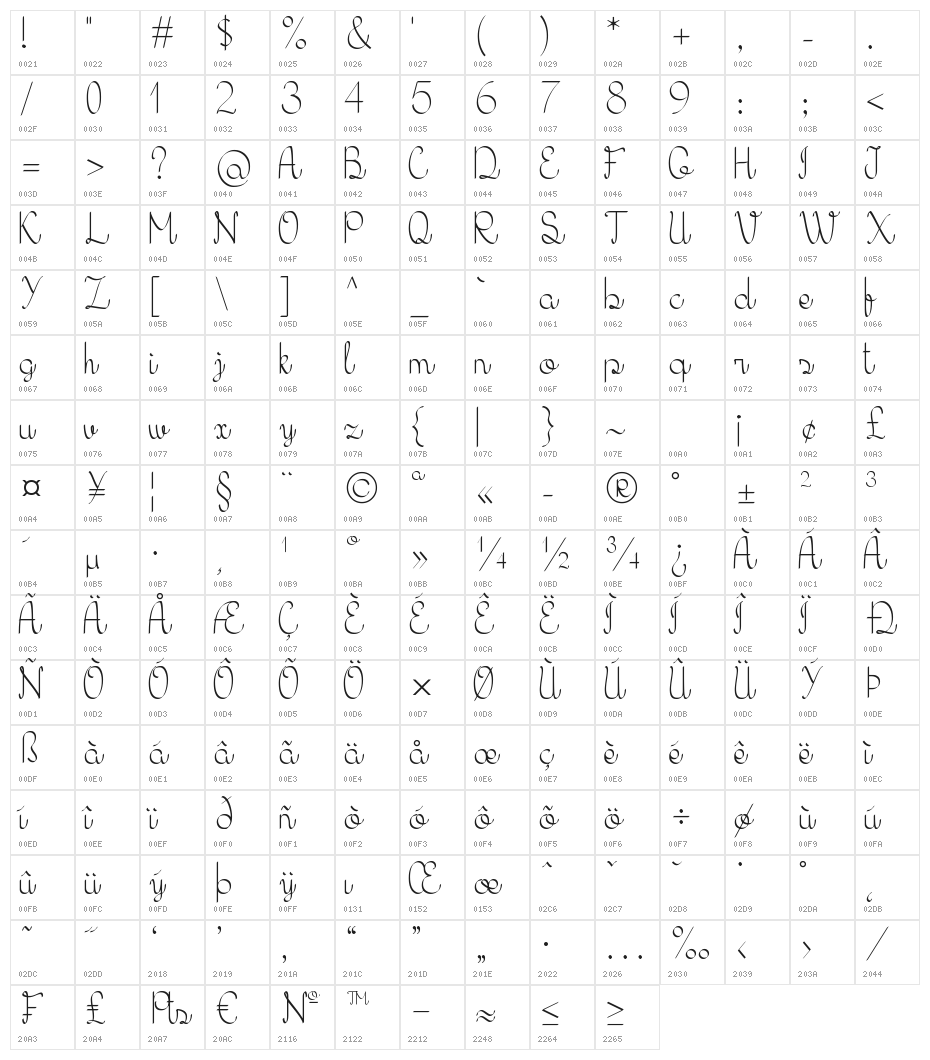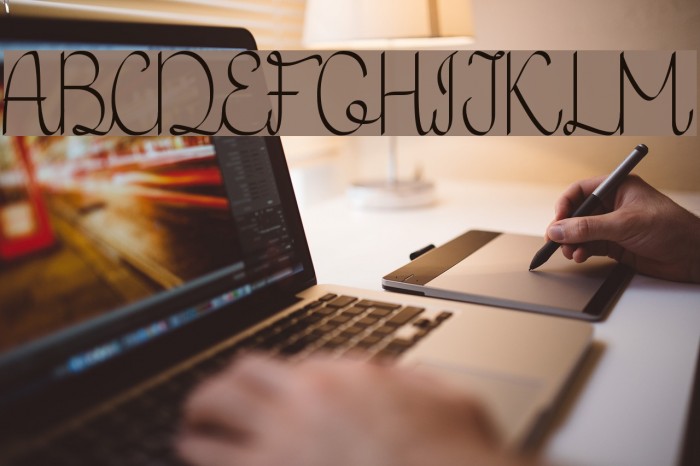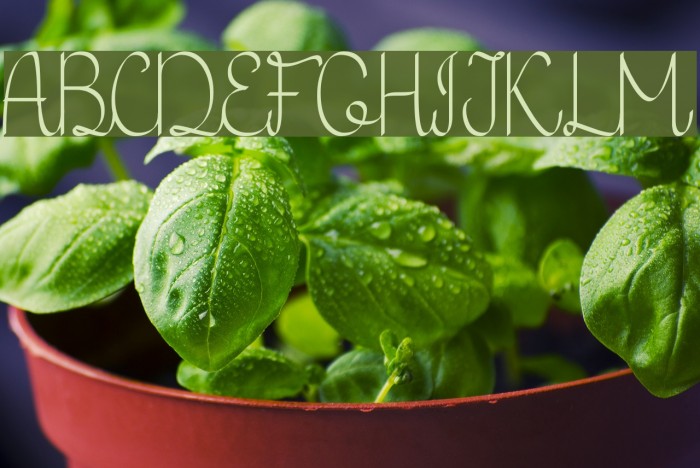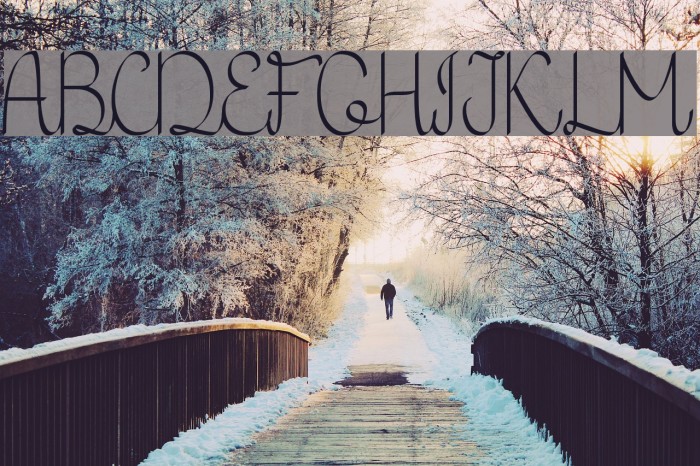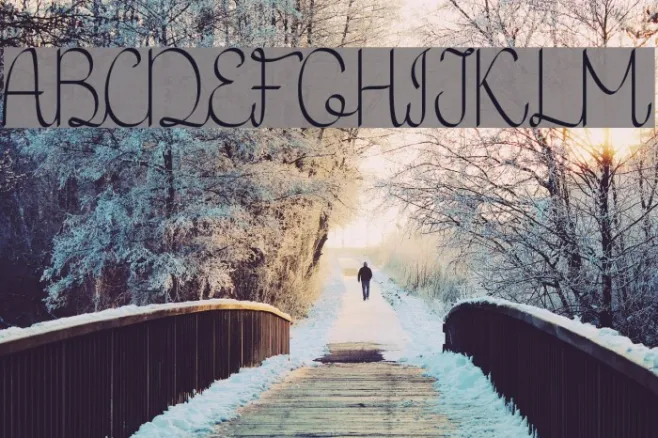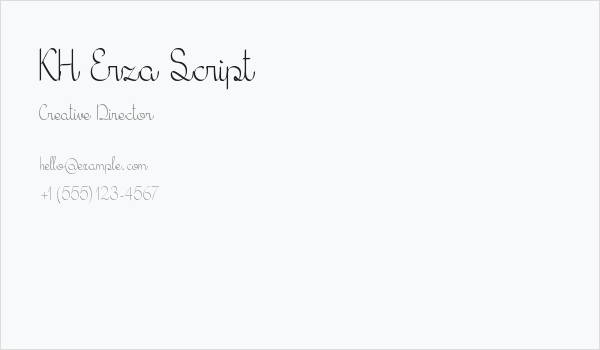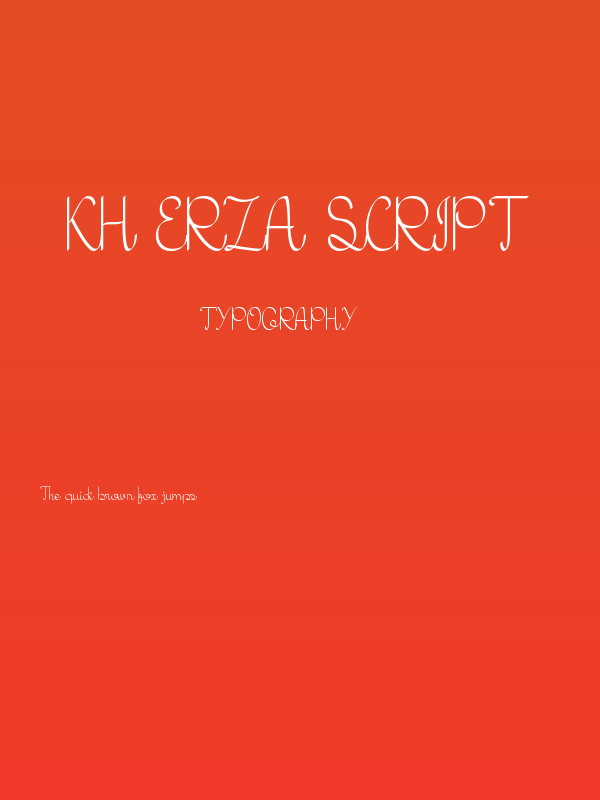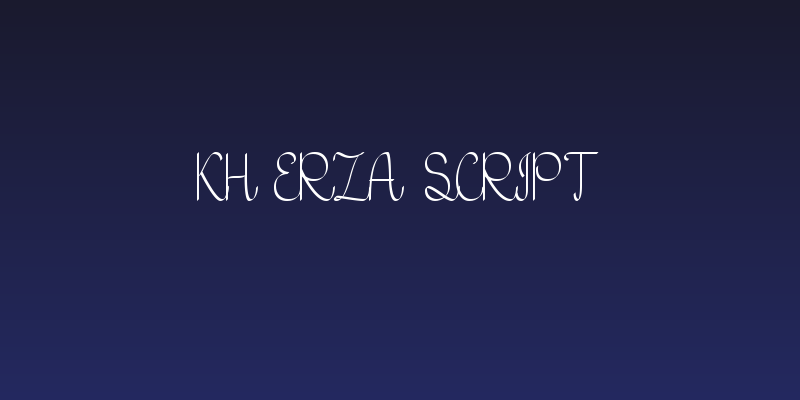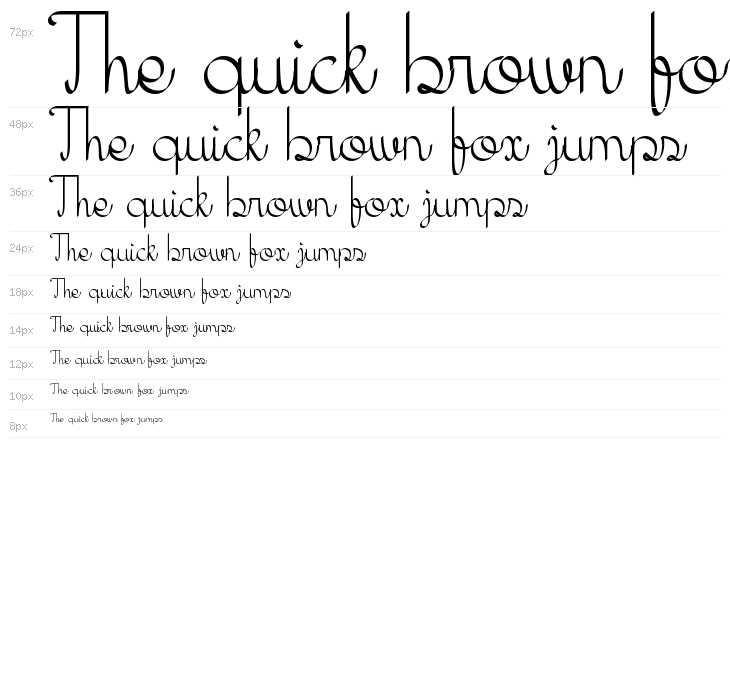
KH Erza Script Font
KH Erza Script Description
This font features a fluid, cursive style with elegant loops and swirls, giving it a sophisticated and artistic appearance. The uppercase letters are tall and slender, with distinctive flourishes that add a touch of flair. The lowercase letters maintain a consistent flow, enhancing readability while retaining a decorative charm. Numbers and special characters are designed to match the overall aesthetic, ensuring a cohesive look across all text. The font's thin strokes and graceful curves make it ideal for projects that require a touch of elegance and creativity.